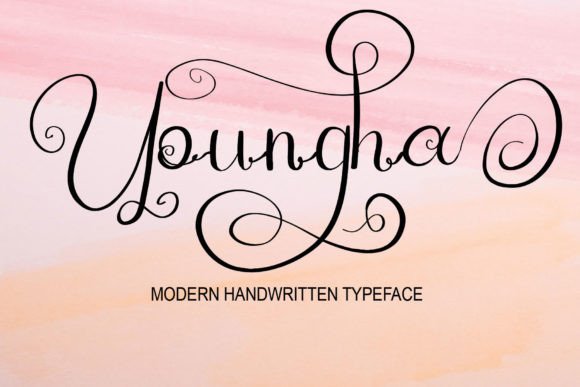
Unleash the power of Youngha, a handwritten script font that's simplicity personified. Its flowing lines, reminiscent of a gentle breeze caressing the pages, embody grace and charm. This font is not just a collection of letters; it's an invitation to explore the boundless realm of creativity.
With Youngha, the possibilities are endless. Create websites that captivate, wedding invitations that evoke elegance, business cards that leave a lasting impression, signatures that exude individuality, and advertisements that command attention. This font transcends the mundane, transforming the ordinary into the extraordinary.
Its beauty lies in its simplicity, allowing it to effortlessly complement any design aesthetic. Its versatile nature makes it a perfect fit for a myriad of projects, from the classic and timeless to the modern and edgy. Whether you're a seasoned designer or just starting your creative journey, Youngha is your trusted companion.
Embark on a typographic voyage with Youngha, where letters dance and words come alive. Discover the joy of creating designs that resonate, designs that tell stories, and designs that leave an indelible mark on the hearts of your audience.